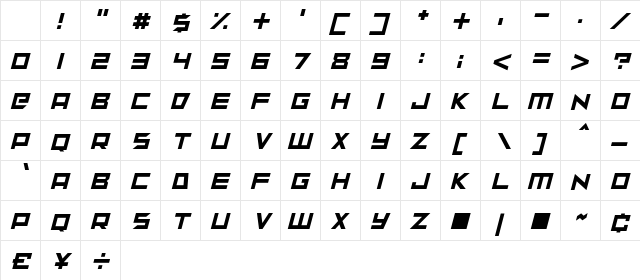
sunspire Italic Free Font
sunspire Italic
Designer: Darrell Flood
Design Context for sunspire
sunspire is a composed and adaptable typeface that performs quietly and consistently across a wide range of design contexts. The slanted form adds forward momentum and visual energy.
Pro Tip: Use sunspire for emphasis, pull quotes, and subheadings where its slanted energy can add rhythm to the layout.